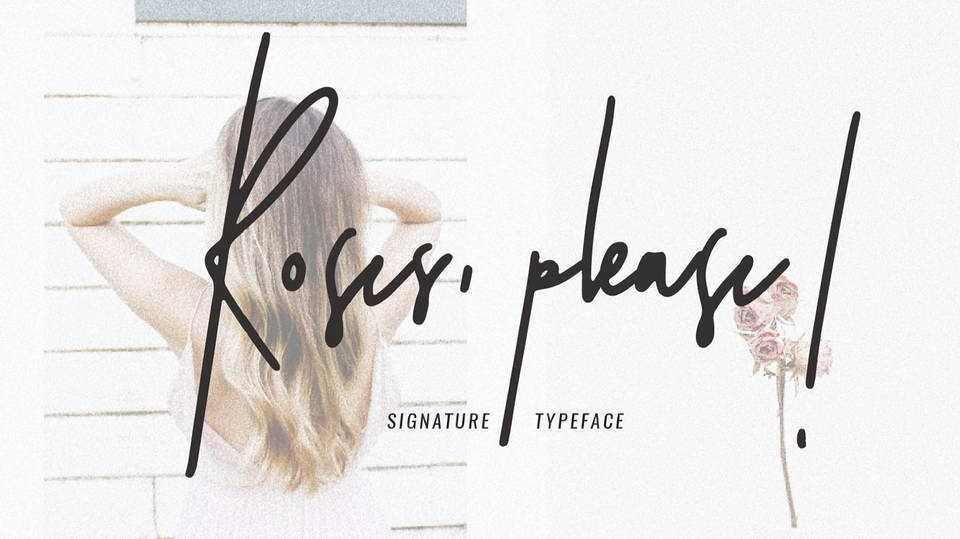
Download Roses, please! font, an impressive signature style typeface. Perfect fit for feminine logos, printed quotes, wedding invitation cards, social media headers, product packaging and a lot more!